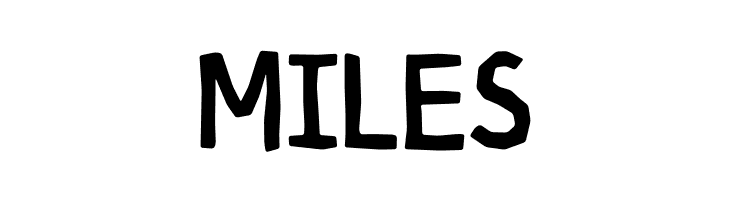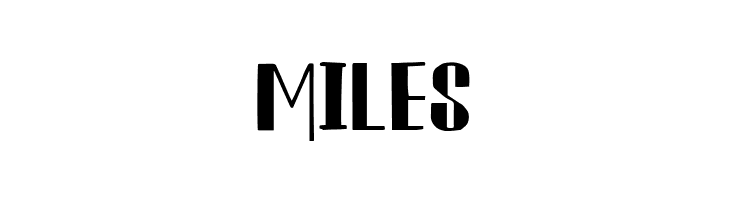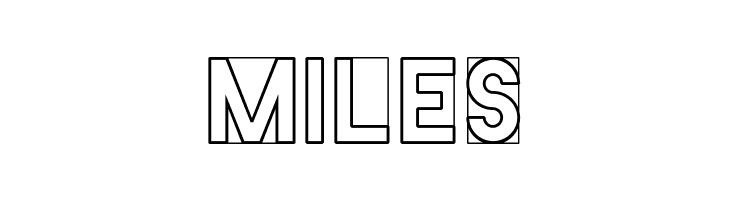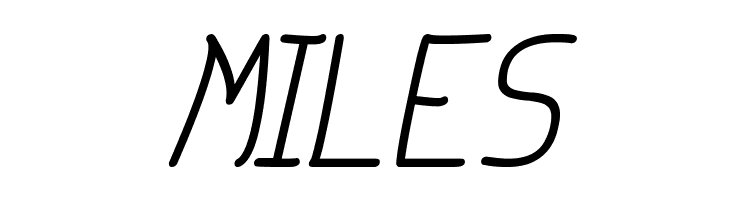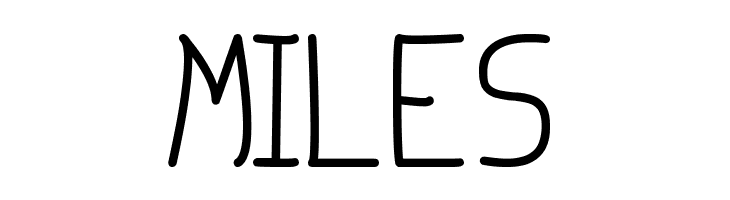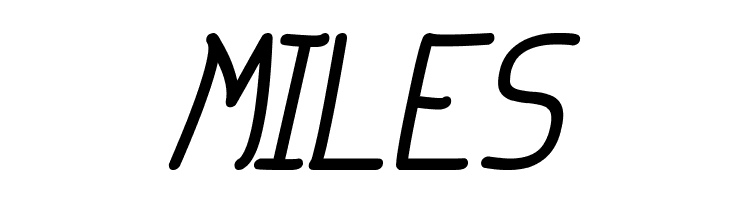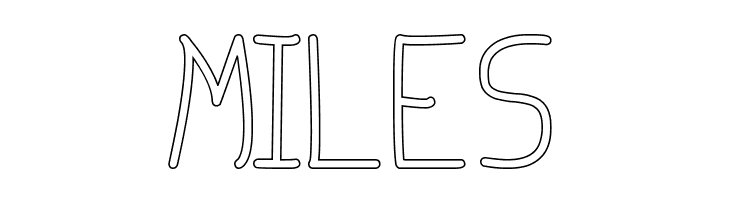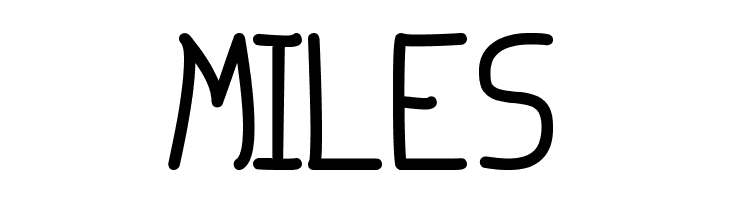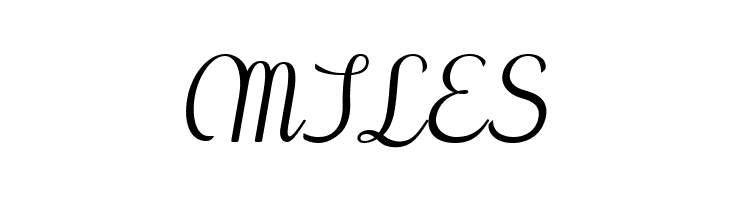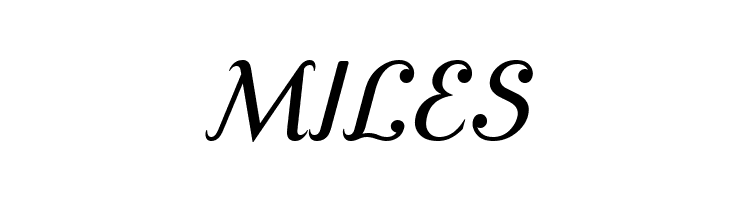
A distressed, jagged font with a chaotic and rebellious style.
A modern, condensed sans-serif font with uniform stroke width and excellent readability.
A clean, modern sans-serif typeface with geometric shapes and uniform strokes.
A bold, brush-style font with dynamic, expressive strokes.
A playful, bold handwritten font with rounded, consistent strokes.
A bold, geometric font with a futuristic and industrial design.
A pixelated, textured font with a crumbled, retro digital aesthetic.
A bold, crumpled-textured font with a rugged, handmade feel.
A bold, crumpled, and hand-drawn style font with a playful and dynamic appearance.
A distressed, hand-drawn font with a crumpled paper effect.
A bold, crumpled, and artistic font with a hand-drawn, edgy style.
A dynamic, edgy font with sharp, angular strokes and a crumpled appearance.
A crumpled, hand-drawn outline font with a modern, artistic flair.
A crumpled, shadowy font with a playful, hand-drawn style.
A bold, distressed font with a textured, vintage appearance.
A bold, three-dimensional font with a shadow effect, perfect for impactful designs.
A modern, elegant font with clean lines and balanced proportions.
A decorative monogram font with classic serif letters encased in ornate circular borders.
A bold, brush-style script font with dynamic, expressive strokes.
A playful, bold, hand-drawn font with rounded strokes and a whimsical style.
A bold, playful font with a bubbly, rounded design.
A bold, brush-style script font with dynamic and lively strokes.
A playful, whimsical script font with flowing, interconnected letters.
A playful, handwritten font with bold, rounded characters.
A playful, bold handwritten font with rounded edges and a casual style.
A collection of medieval-themed symbols and icons with intricate designs.
A fluid, cursive script font with a dynamic handwritten style.
A bold and expressive script font with fluid, dynamic strokes.
A bold, flame-accented font with a dynamic and energetic style.
An elegant, flowing script font with a delicate and artistic flair.
An elegant, flowing script font with smooth, cursive strokes.
A bold, hand-painted style font with rough, textured edges and dynamic strokes.
A bold, expressive brush script font with dynamic strokes and a modern, artistic style.